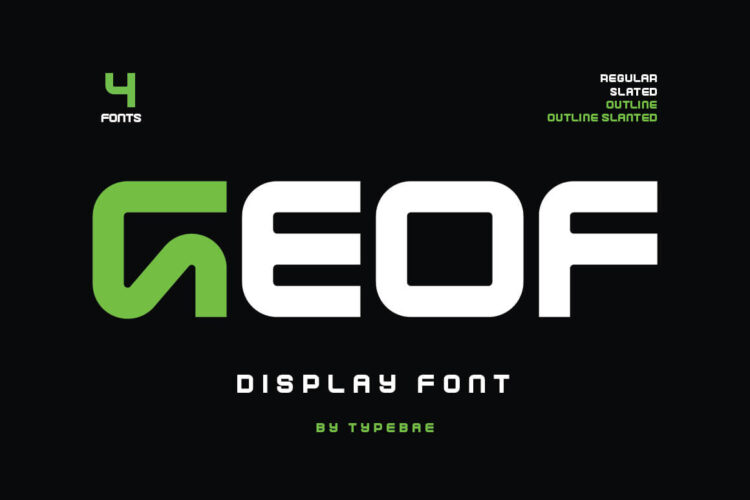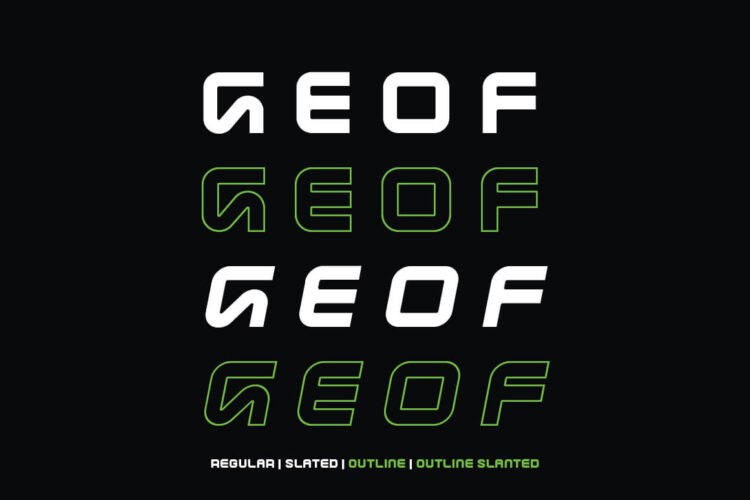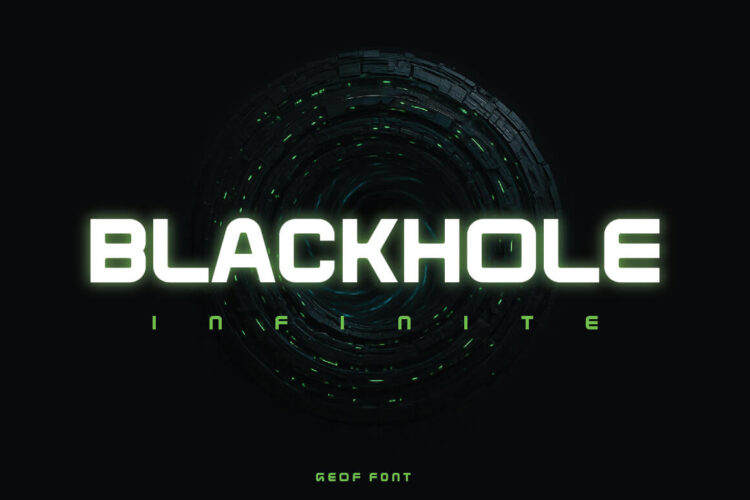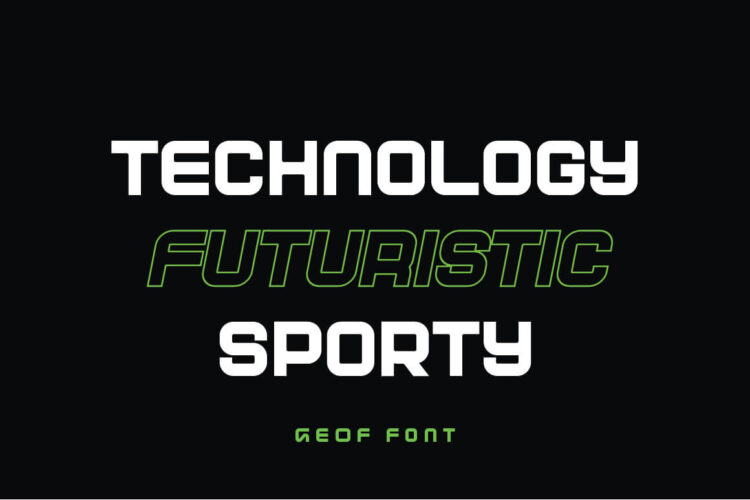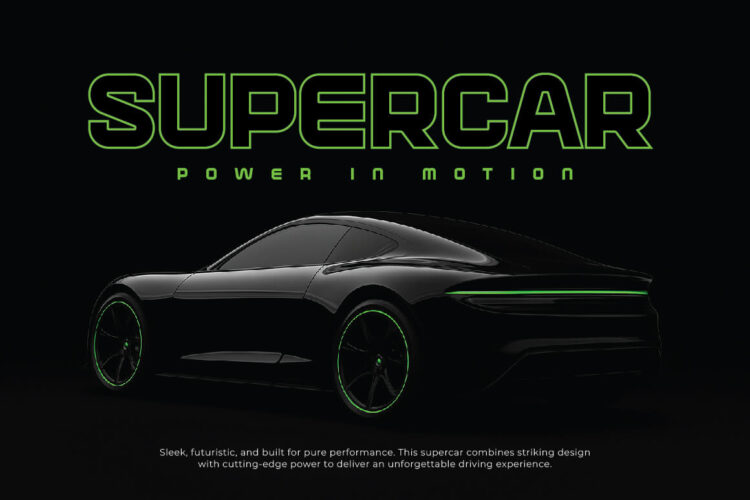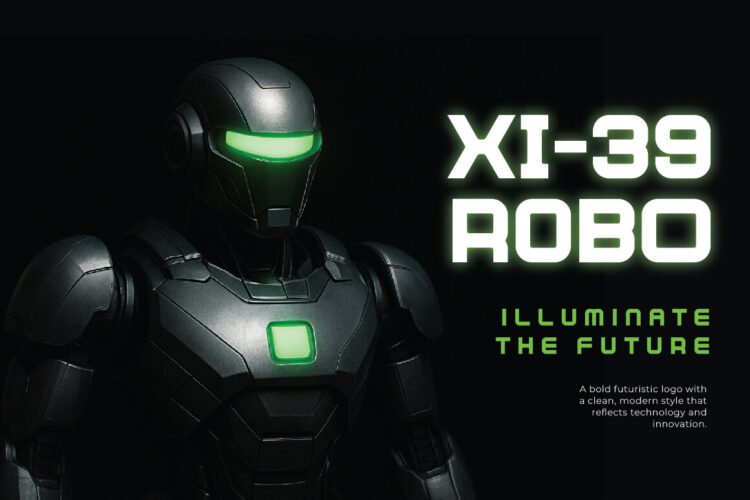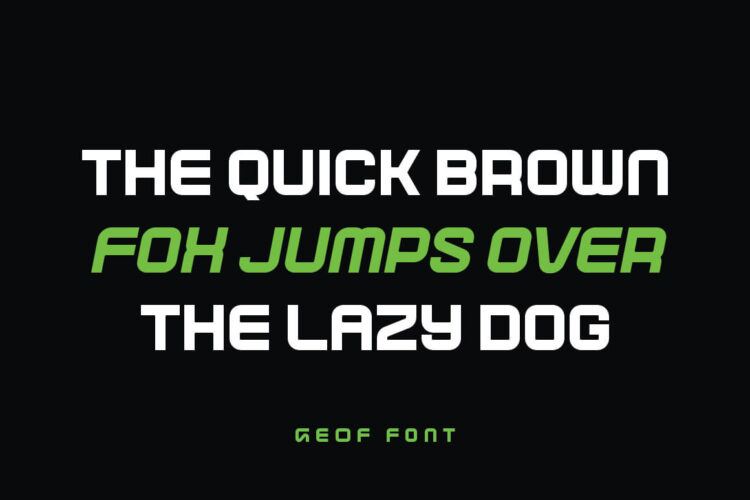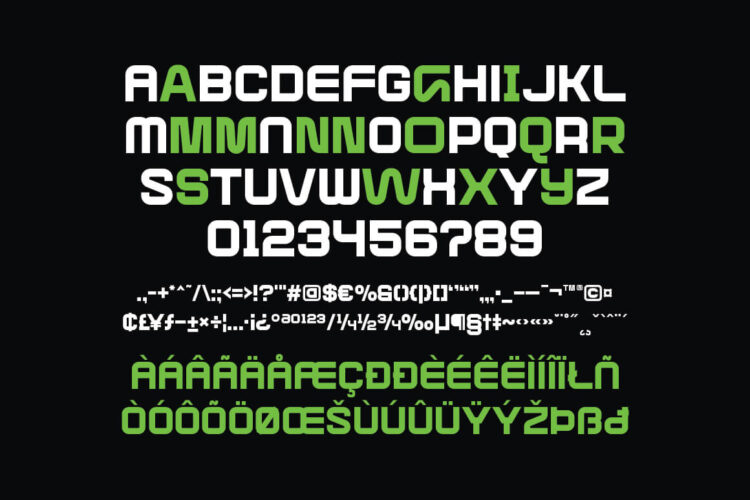
Geof - Futuristic Techno and Sport Display Font
Geof is a futuristic tech-inspired display font that combines bold geometry with modern style. Perfect for technology branding, esports, sci-fi posters, gaming graphics, and digital interfaces, Ava delivers a strong and sleek impression. With its unique letterforms, this font stands out in logos, headlines, and creative projects that need a futuristic touch.
• All Cap, Numerals & Punctuation
• Stylish Alternates Glyphs
• Accented Characters / Multilingual Support
Geof – Futuristic Tech Display Font